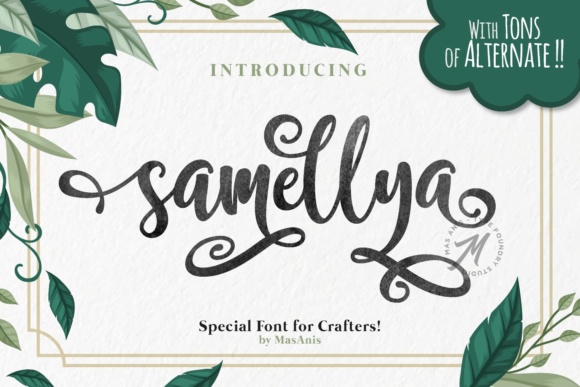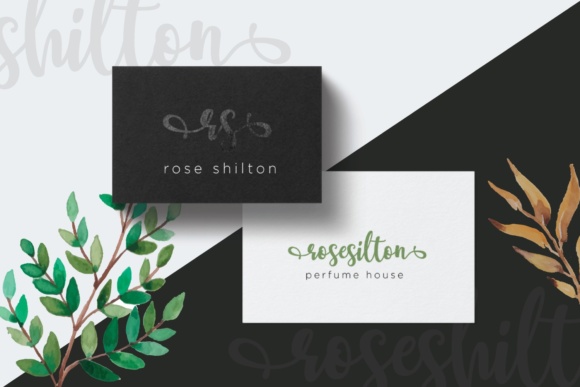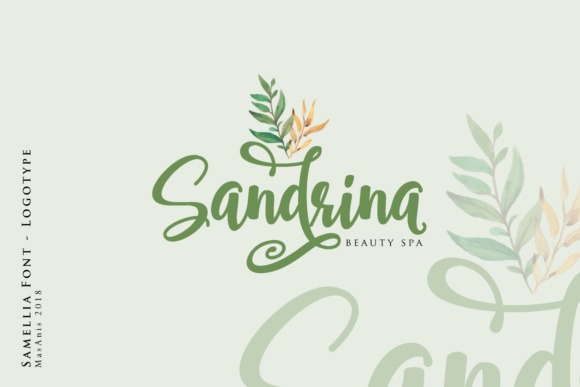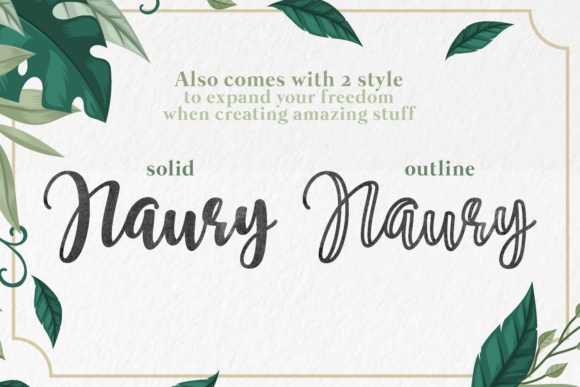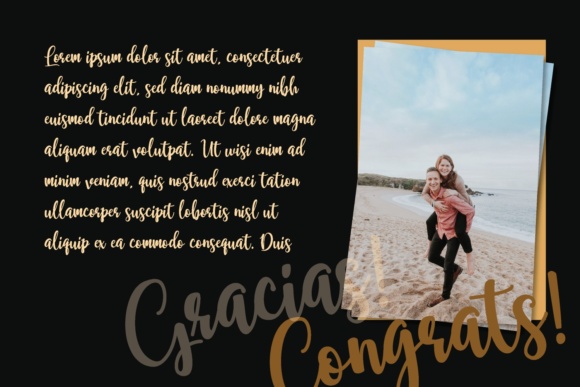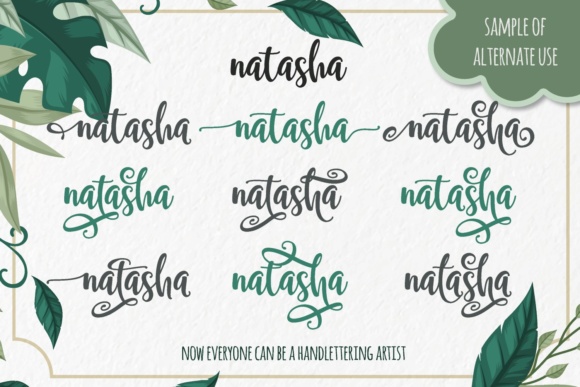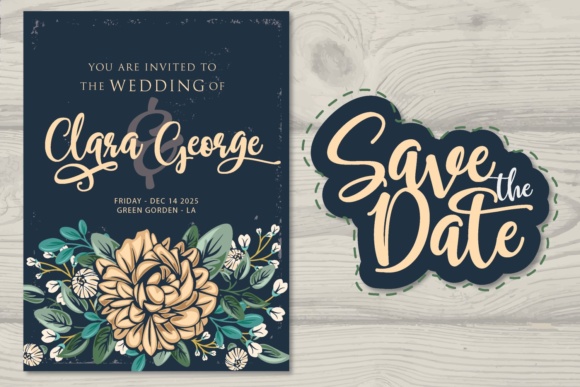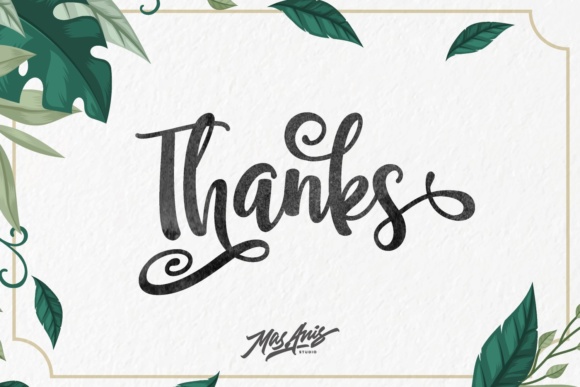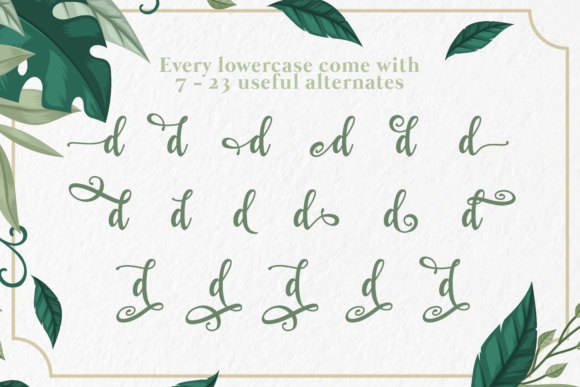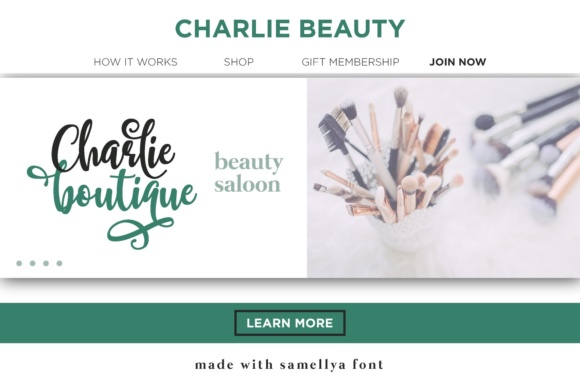
Samellya Font
About Samellya Font
The Samellya is a font created specifically for crafters. This stunning font allows you to create gorgeous designs.
With all its swashes and alternates, its the perfect font to use over and over for each design project.